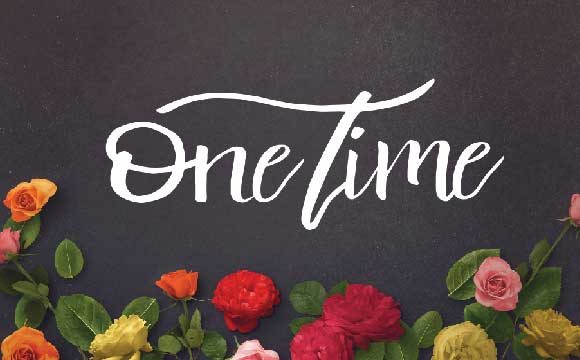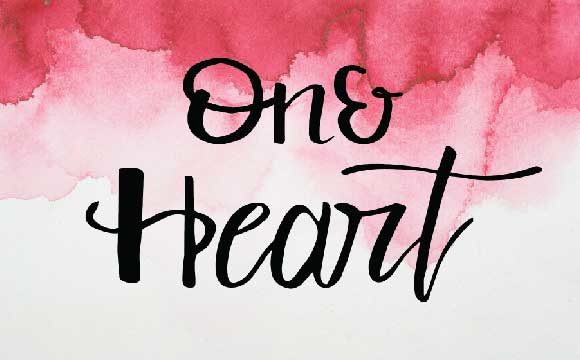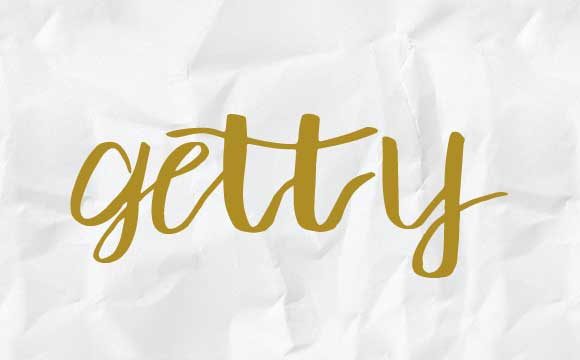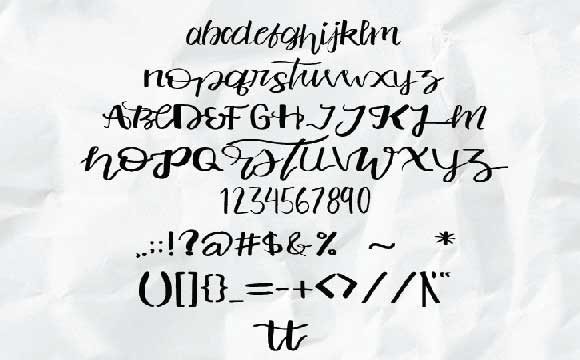
Introduction to Natune Font
As designers, we’ve all been there – staring at a blank canvas, searching for the perfect words to bring our creative project to life. It’s that moment of inspiration when everything falls into place, and the right font can make all the difference. For me, that moment came when I stumbled upon the stunning Natune Font.
This beautiful script font is a game-changer for designers, offering an authentic and high-quality lettering style that’s perfect for crafting unique and eye-catching designs. With its transparent background, Natune Font is a valuable design resource that can elevate any creative project. Whether you’re working on a branding project, a wedding invitation, or a social media graphic, this font is sure to impress. And the best part? It’s available for free download, making it an accessible resource for designers of all levels.
So, let’s dive into the world of Natune Font and explore its features, benefits, and ways to use it in your next design project.
Key Features of Natune Font
- High-quality design resource for creative projects: Natune Font is a unique and stylish font perfect for designers and artists working on various creative projects.
- Transparent background: This font features a transparent background, allowing for easy layering and seamless integration into various design elements.
- High-resolution design: With a resolution of 300 DPI, Natune Font is perfect for high-quality print and digital projects, including posters, business cards, and website design.
- Unique and stylish design: Natune Font features a unique and stylish design, making it an excellent choice for designers and artists looking to add a touch of elegance to their creative projects.
Honest Review: Natune Font
I recently stumbled upon the Natune Font while searching for a high-quality design resource for a creative project. I was impressed with the clean and elegant design of this font.
- ✨ One of the standout features of the Natune Font is its high quality and crisp rendering, making it perfect for both digital and print designs.
- ✨ Another great feature is its transparent background, which gives it a modern and sleek look.
- ✨ The font is also highly versatile and can be used in a variety of creative projects, from logos to brochures.
However, I did encounter a few limitations with the Natune Font. One of the issues is that it’s not suitable for all types of designs. For example, it may not work well for designs that require a bold or dramatic effect.
- ⚠️ Limited expressiveness, which may not be ideal for designs that require a lot of emphasis.
- ⚠️ May not work well with certain color combinations or backgrounds.
Overall, I think the Natune Font is a solid design resource that can be useful for many creative projects. Its high quality and clean design make it a great choice for designers who want a professional-looking font.
For optimal results, use the Natune Font in conjunction with a high-quality image or background. Experiment with different font sizes and colors to achieve the desired effect. The font’s transparent background also makes it perfect for creating custom graphics and designs.
The Natune Font is ideal for a variety of creative projects, including graphic design, digital art, and web design. It’s also perfect for creating social media graphics, flyers, and brochures.